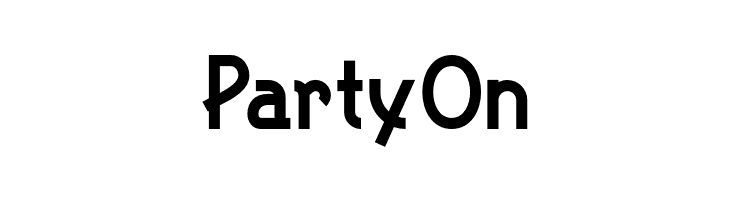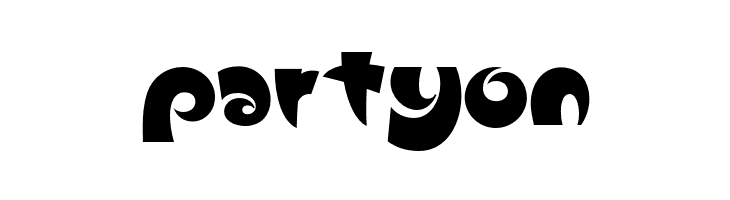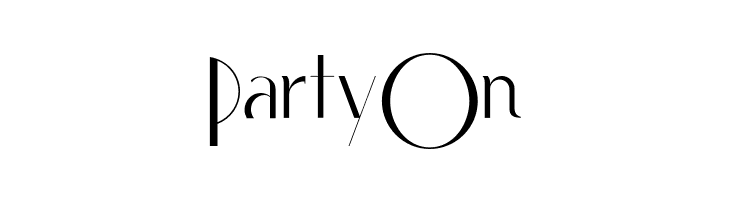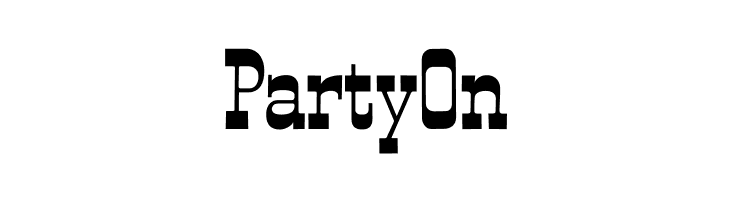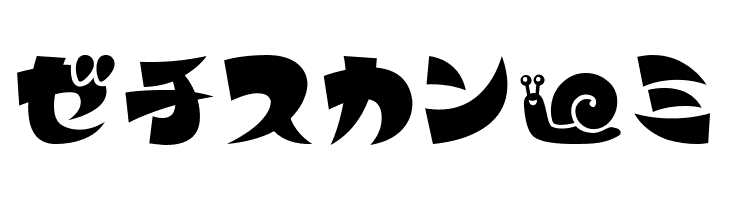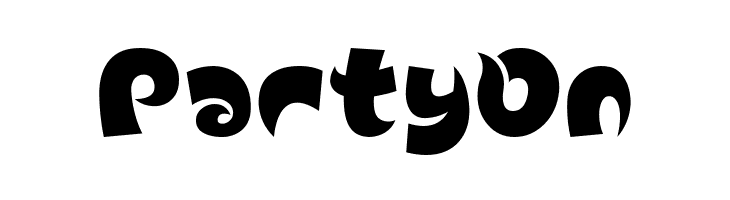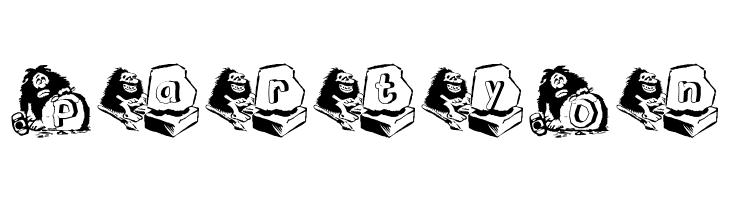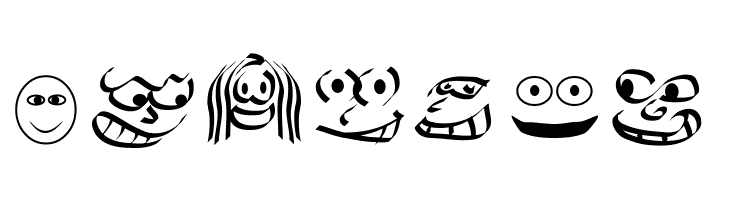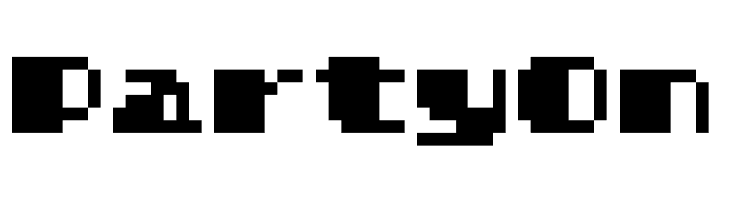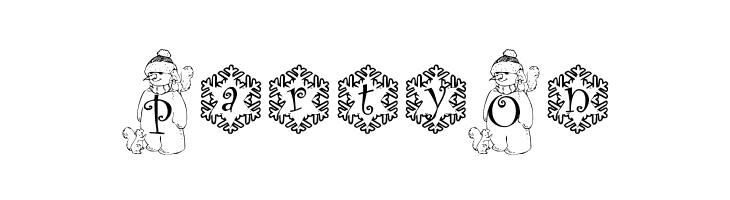
• SlugfestNF
A bold, playful font with exaggerated curves and a whimsical style.
• SmartFrocksNF
An elegant and artistic font with flowing lines and decorative flourishes.
• Smiles
Cartoonish font made of expressive smiling faces.
• Smilin_John
A whimsical, decorative font with characters embedded in cartoon illustrations.
• Smokum
A bold, slab serif font with a Western-inspired, vintage style.
• SnailAL
A playful, bold font with quirky, rounded characters and a whimsical style.
• SnailKT
A playful, bold font with rounded, dynamic letterforms.
• SnappyServiceNF
A bold, modern font with geometric lines and a slightly condensed style.
• snowman1_kg
A festive font with uppercase letters in snowmen and lowercase in snowflakes.
• Solomon's Key True Type
A bold, pixelated font with a retro digital style.